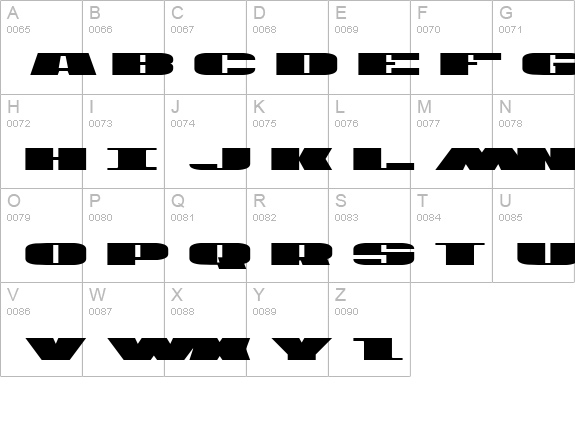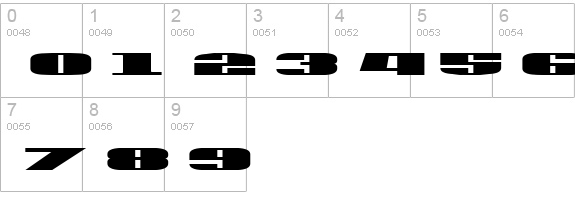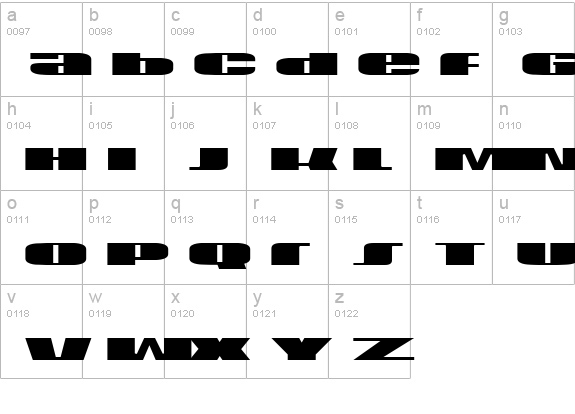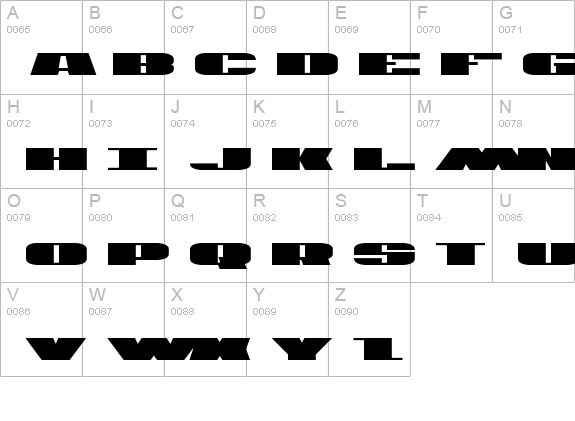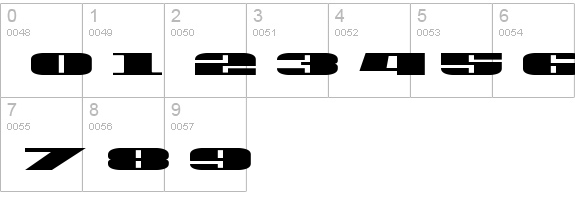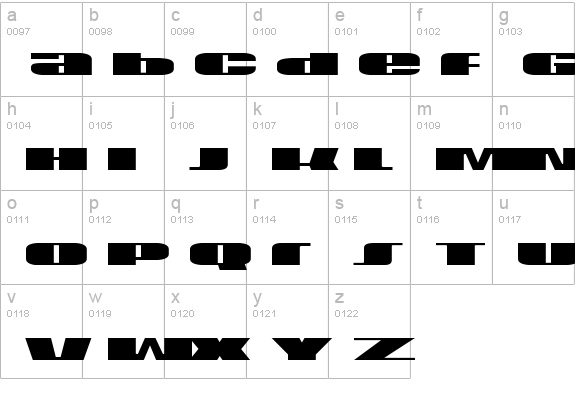
Introducing the captivating U.S.A. font, a striking typeface that effortlessly combines contemporary design with a classic American spirit. With its bold and impactful letterforms, U.S.A. font exudes a sense of strength and confidence that is synonymous with the United States. This versatile font is perfect for a wide range of design projects, from eye-catching headlines to impactful brand logos. Its clean and well-defined lines ensure legibility, even at smaller sizes, making it ideal for both print and digital applications. But the best part? U.S.A. font is completely free! Yes, you read that right. This remarkable typeface is freely available to download at FontsMarket.com. Say goodbye to expensive licensing fees and hello to unlimited creative possibilities. Whether you're a professional designer or a creative enthusiast, U.S.A. font empowers you to bring your vision to life without breaking the bank. Crafted with meticulous attention to detail, this font boasts a wide range of glyphs, including uppercase and lowercase letters, numerals, punctuation marks, and special characters. Its extensive character set ensures that you have all the tools you need to create stunning designs that truly stand out. So why wait? Discover the power of U.S.A. font today and join the countless designers who have already embraced its bold charm. Visit FontsMarket.com now to download this incredible typeface for free and elevate your design projects to new heights.